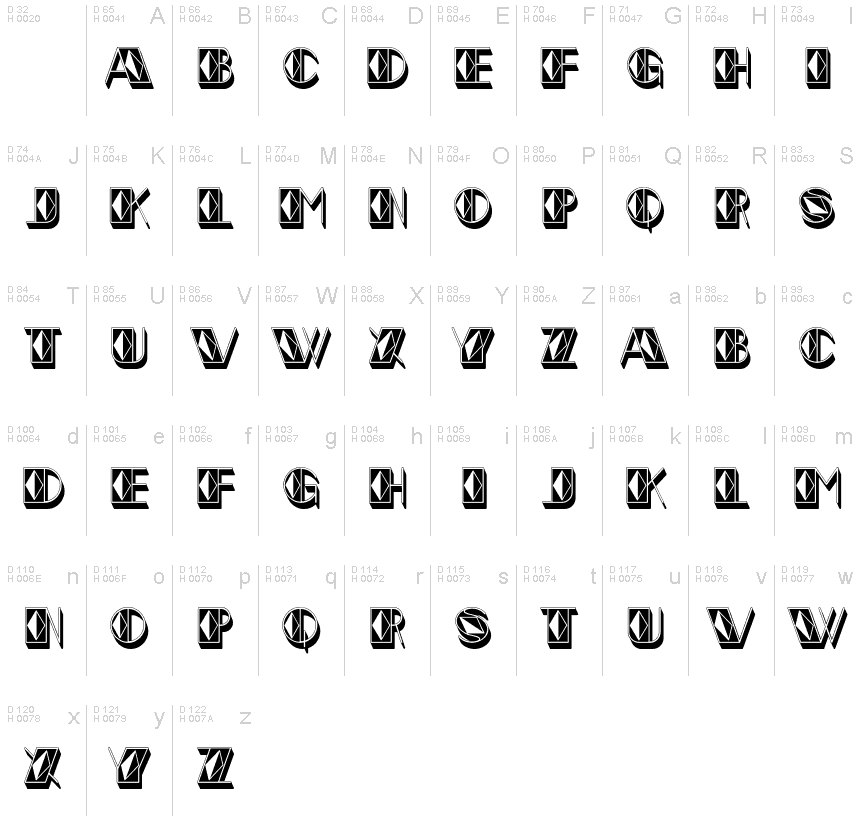
Cristal Regular
Cristal, designed by Vladimir Nikolic, is a bold, wide display font perfect for bringing decorative flair to any project. From headline titles to posters and merchandise designs, Cristal adds a touch of charm and sophistication.